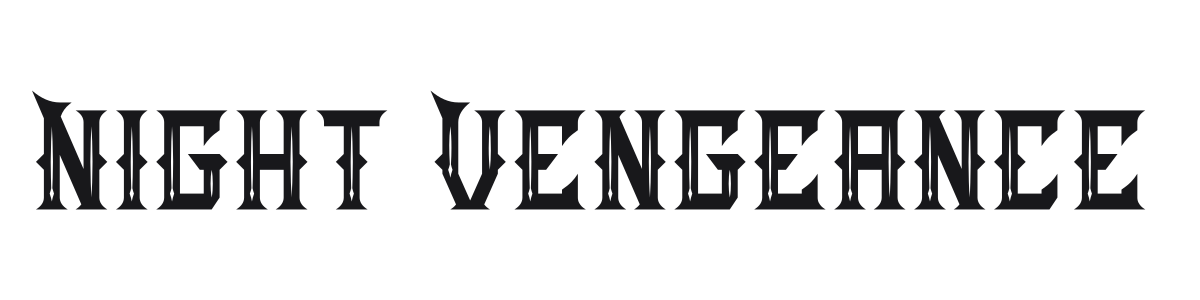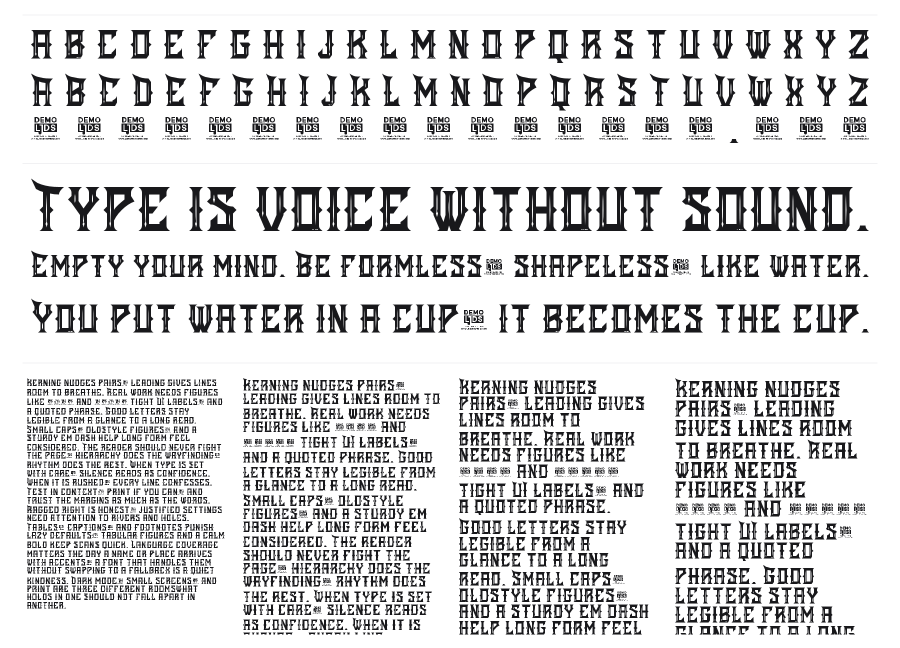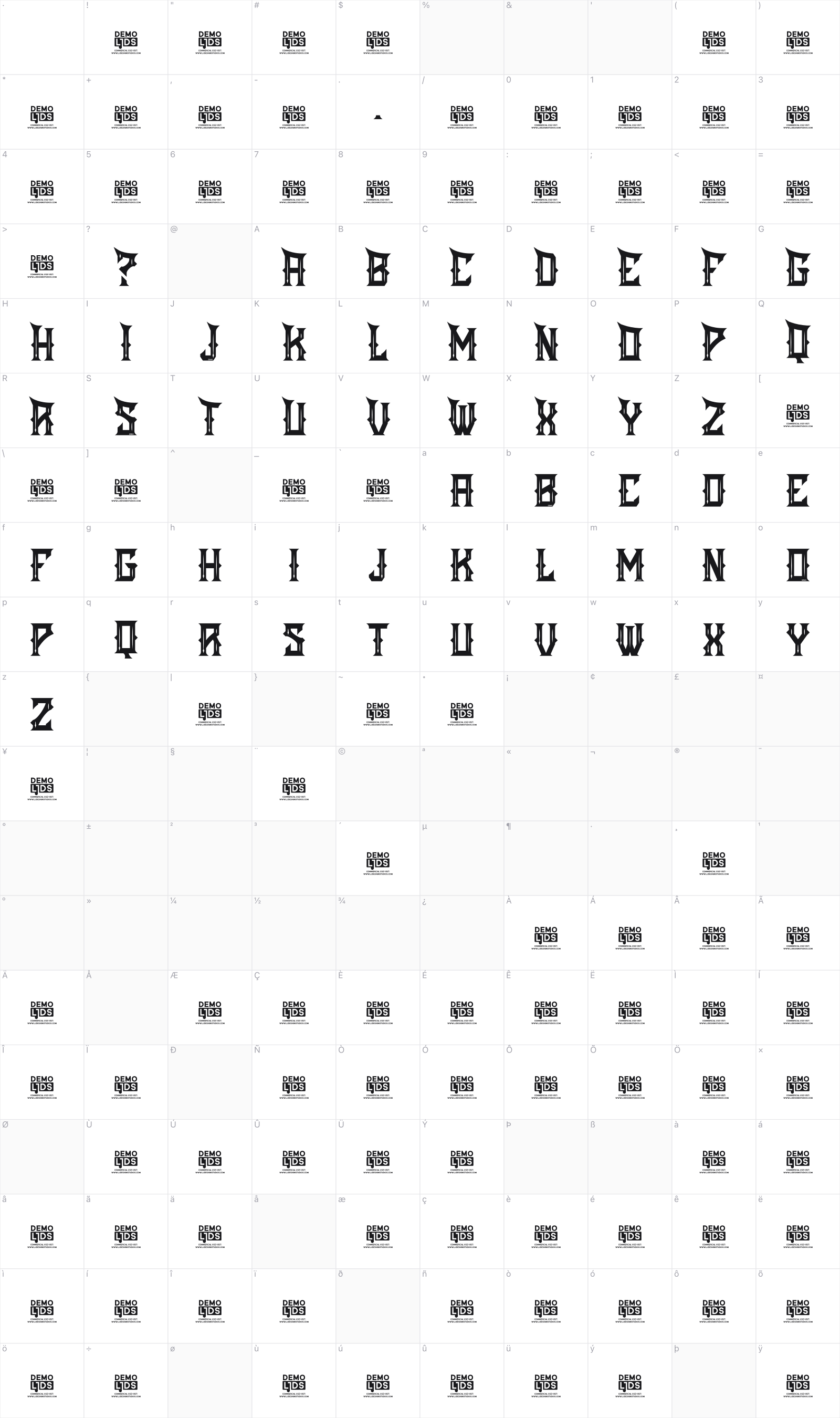
Night Vengeance
Night Vengeance is a heavy gothic display font that channels the aggressive energy of metal band logos through sharp angular strokes and fine inline scoring carved into each thick stem. The pointed spur serifs and high stroke contrast give it a weapon-forged quality that reads as both medieval and contemporary dark culture. Built for posters, album covers, and any headline that needs to feel dangerous.